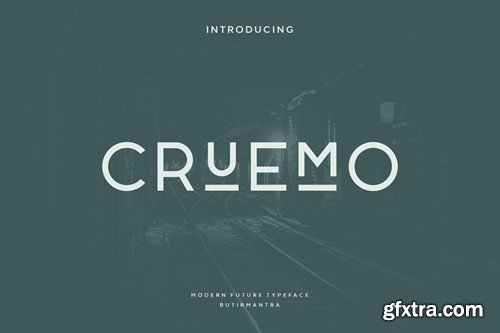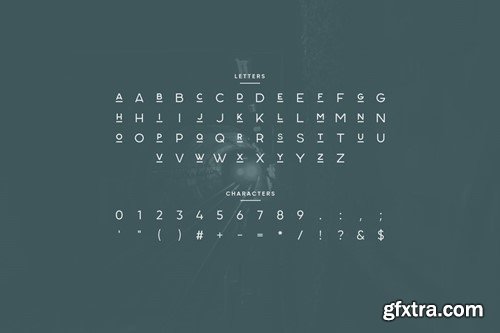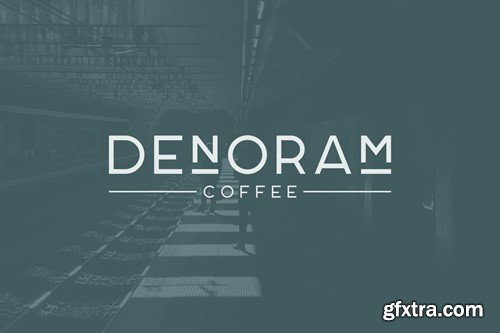
Cruemo - Modern Display Font
Cruemo is display font with a unique style with a little improvisation in the lowercase mode, although this font is all-caps but has a unique on uppercase font. This font is very suitable for anything related to the future, illustrations, posters, titles, logos, magazines, or various other designs, you will get a different experience and stand out in your designs. File Included : Thanks for subscribe and good luck with your project!